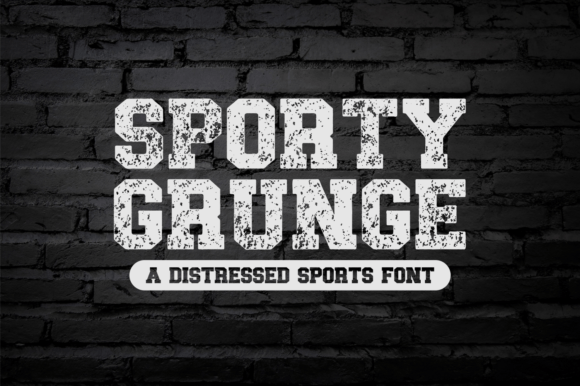
Introducing Sporty Grunge Font, the ultimate solution to your creative needs! This display font, created by SVG Cuttables, offers a unique and heavily distressed texture that will add a touch of edginess to any design project.
Are you tired of using plain and boring fonts that fail to make an impact? Say goodbye to mundane typography and upgrade your designs with Sporty Grunge. The font family is versatile and can be used for various design purposes, from sports-related projects to music and fashion branding.
Sporty Grunge is not just a font, but a tool that will unleash your creativity and allow you to express your ideas like never before. Its captivating and emotional appeal will engage your audience and make your message stand out from the crowd.
This font is the perfect choice for those who want to create designs that ooze personality and attitude. It is a great asset to have in your font library and will definitely help you elevate your design game.
In conclusion, if you want to add a touch of coolness, grunge, and personality to your designs, Sporty Grunge Font is the way to go. Download it now and take your creations to the next level.